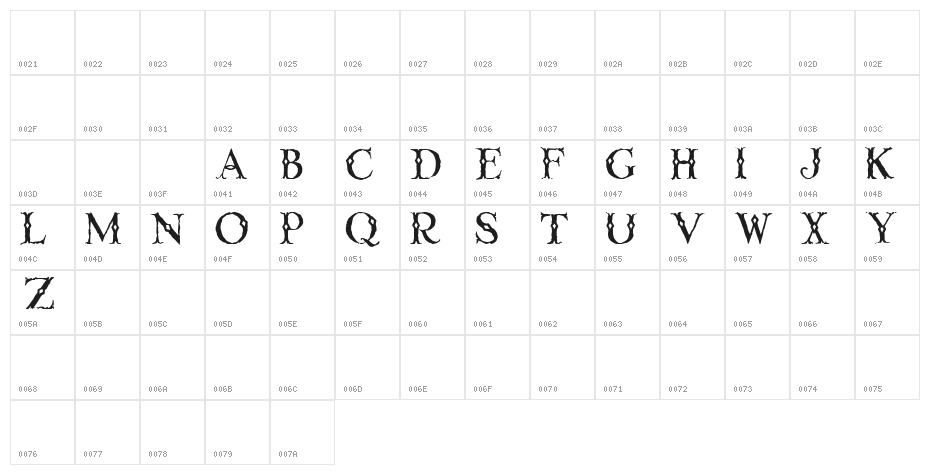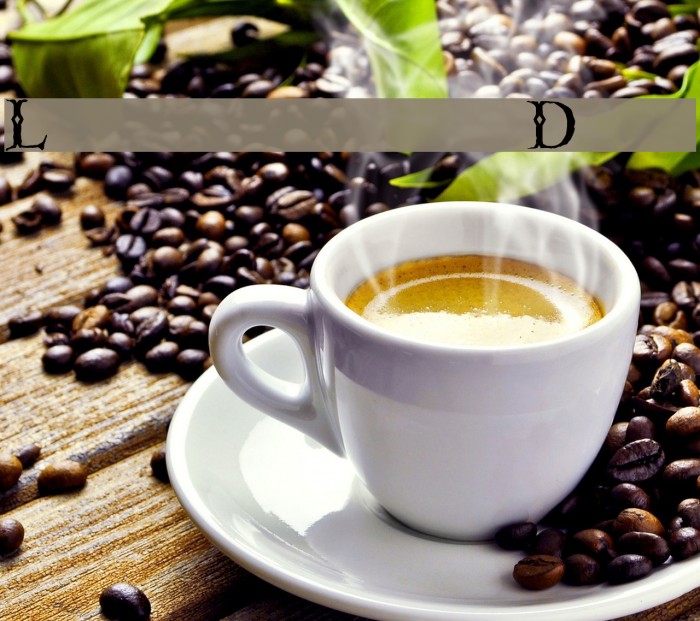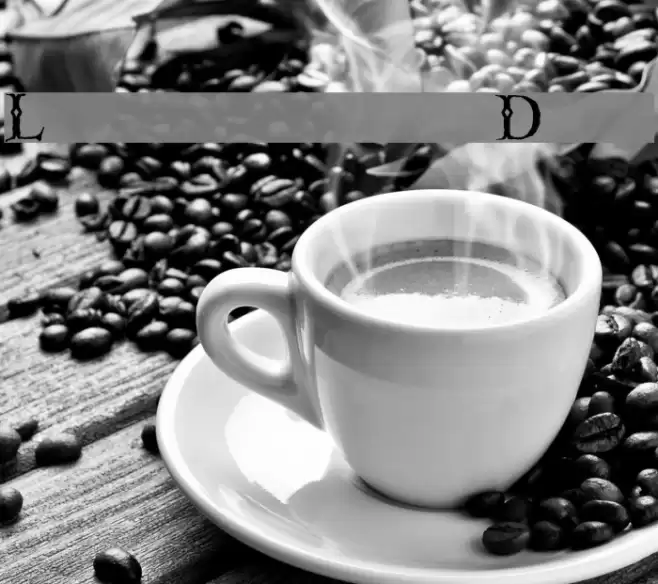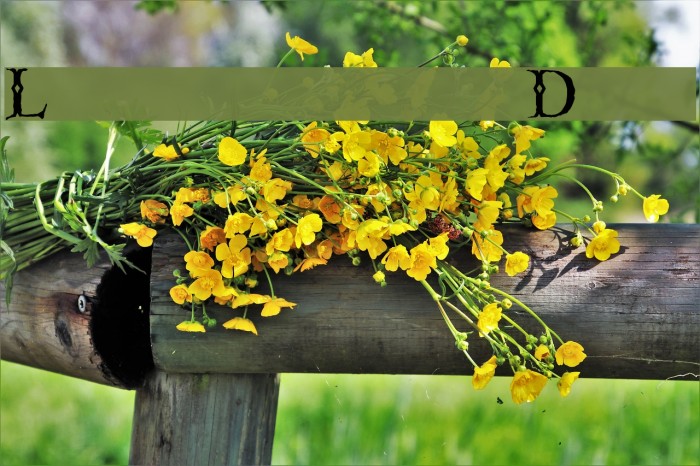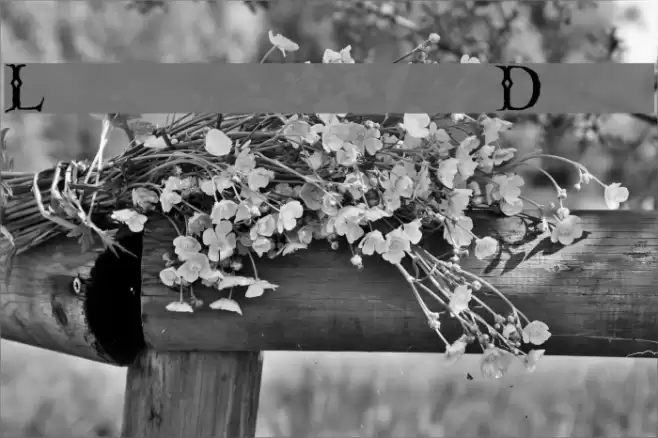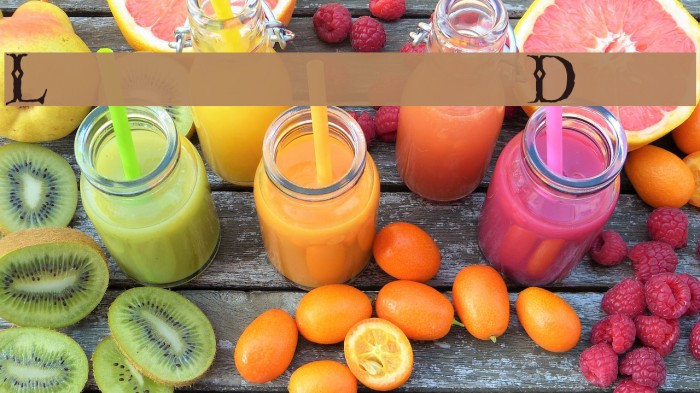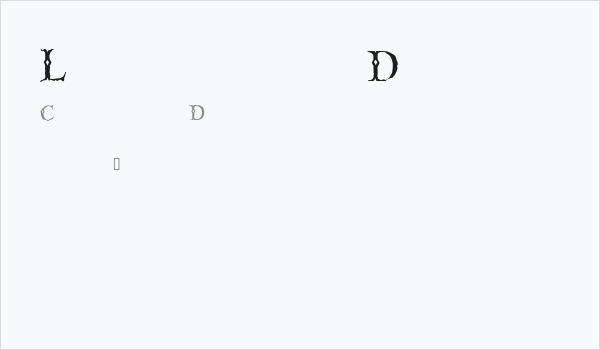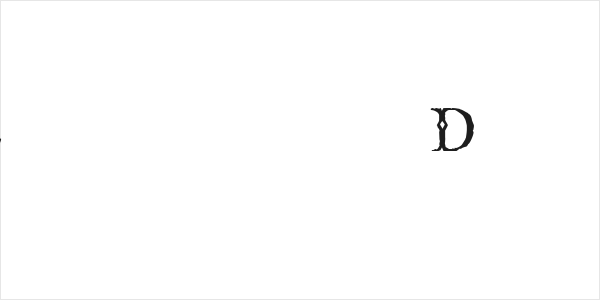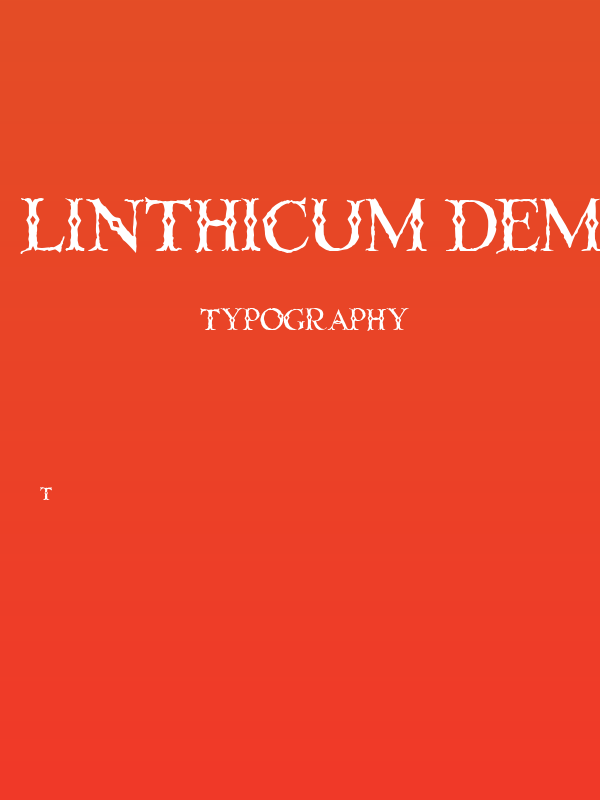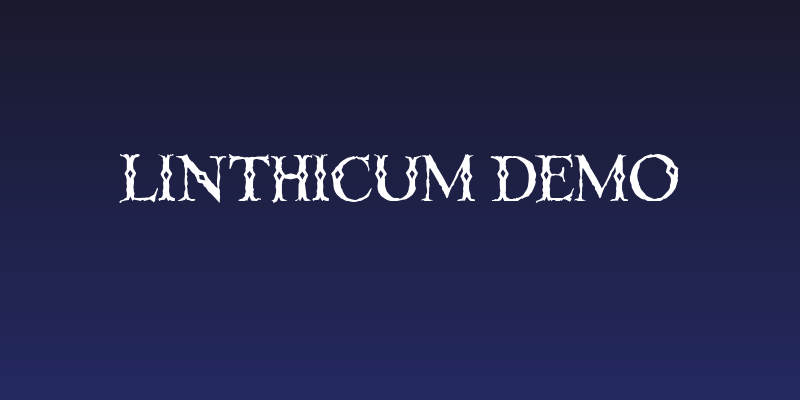
Linthicum Demo Font
Linthicum Demo Description
This font features a distinctive, decorative style with sharp, thorn-like extensions on each character, giving it a gothic and somewhat medieval appearance. The uppercase letters are bold and dramatic, with a high contrast between thick and thin strokes, enhancing its ornate look. The characters are evenly spaced, yet the intricate detailing makes them appear interconnected, creating a cohesive visual flow. This font is ideal for projects that require a touch of elegance and mystery, such as fantasy-themed designs, book covers, or event invitations. Its unique style captures attention and adds a historical or fantastical element to any text.
| Overall Style | Gothic, Decorative |
| Proposed Projects | Fantasy book covers, gothic-themed event invitations, decorative posters. |